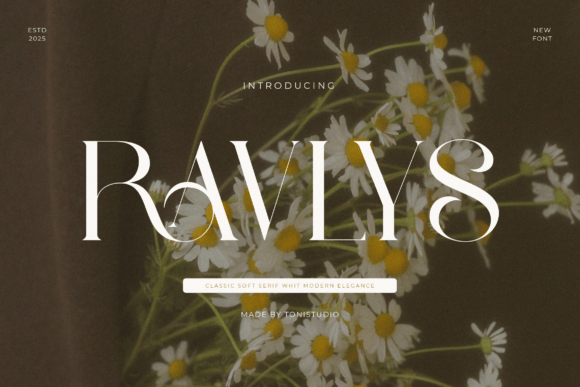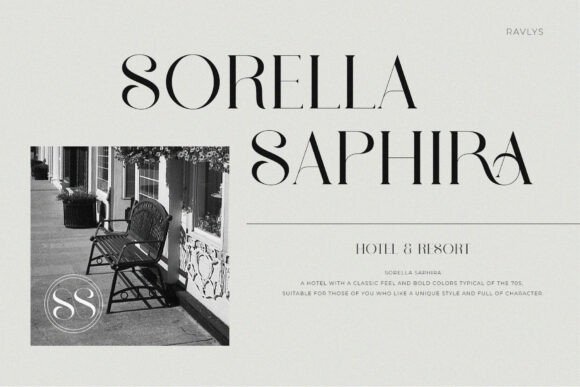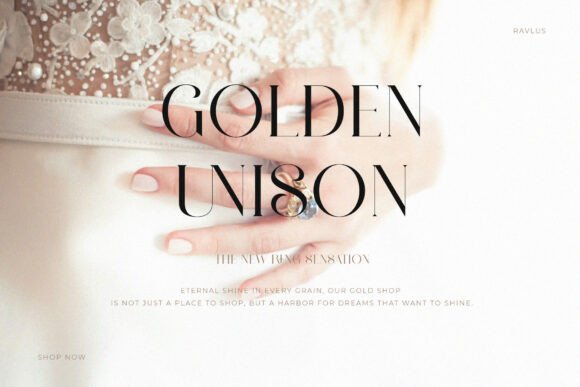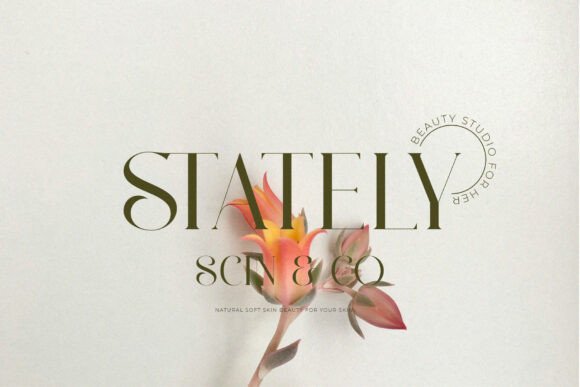
Ravlys Font: Elegant Serif for Branding & Wedding Design
About the Ravlys Font
Let us introduce you to Ravlys Font, where timeless design meets modern craftsmanship. Ravlys is a charming and soft serif typeface that speaks with elegance and a gentle personality. With subtle curves and fine-tuned contrast, Ravlys is perfect for designs that need a touch of femininity and grace. Its sophisticated form makes it ideal for branding projects, wedding stationery, fashion editorials, and upscale packaging.
The letterforms of Ravlys are carefully crafted to balance classic beauty with modern sensibilities, giving your designs a timeless yet fresh appeal. Whether you’re creating a logo, a website header, or an invitation suite, Ravlys will elevate your message with elegance.
Ravlys Font Usage Examples
Ravlys Font Example